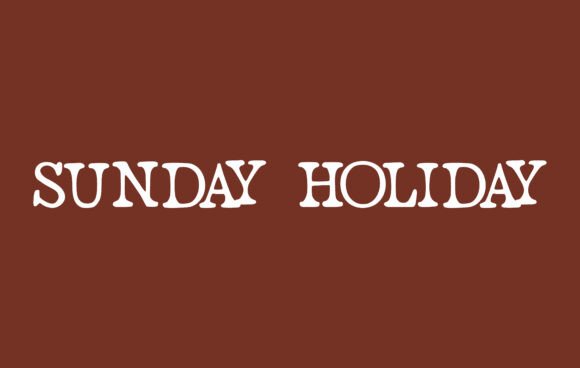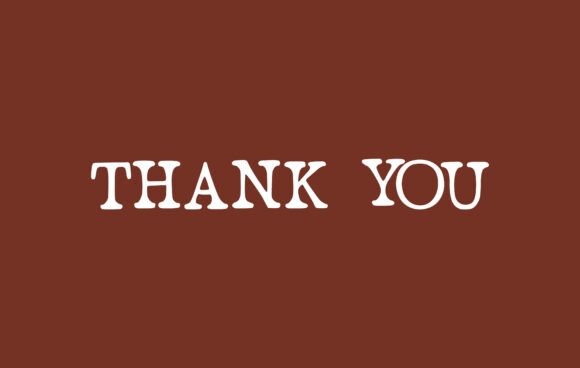
Introduction to Happyglyph Font
HappyGlyph is a decorative serif font with fun, exaggerated forms that bring energy and personality to any design.
Use it for party invites, playful logos, or eye-catching headlines that need a unique edge .
Key Features of Happyglyph Font
Why Choose Happyglyph Font?
Happyglyph Font offers exceptional quality and versatility, making it a valuable addition to your design toolkit. Whether you’re creating for personal projects or commercial use, Happyglyph Font delivers professional results.